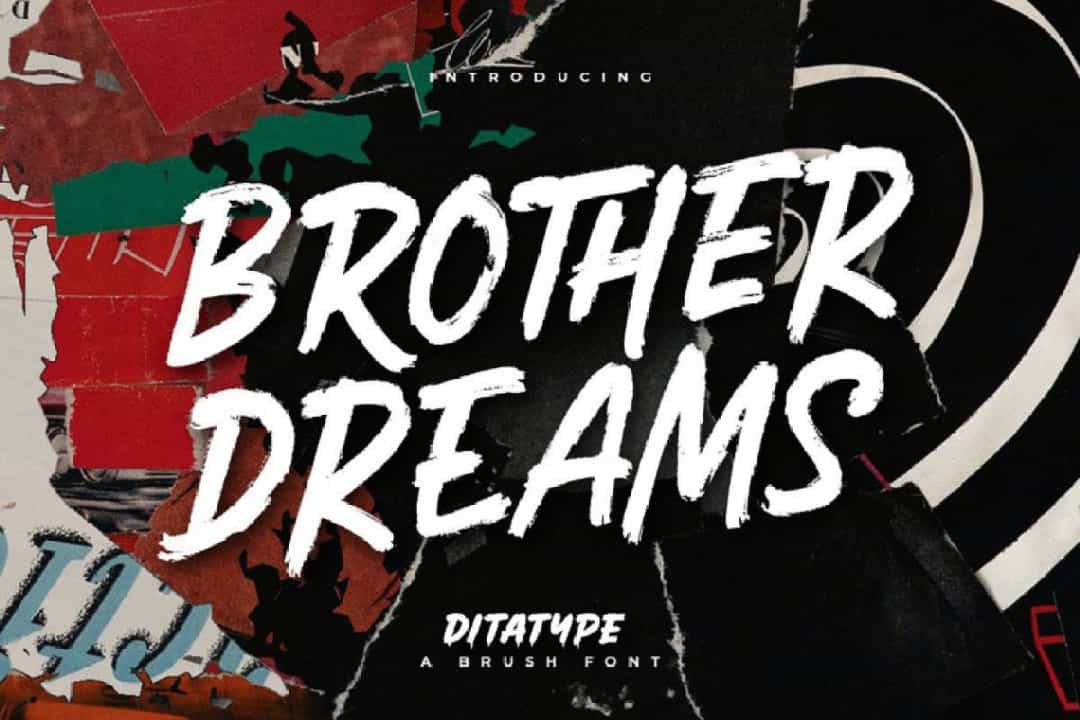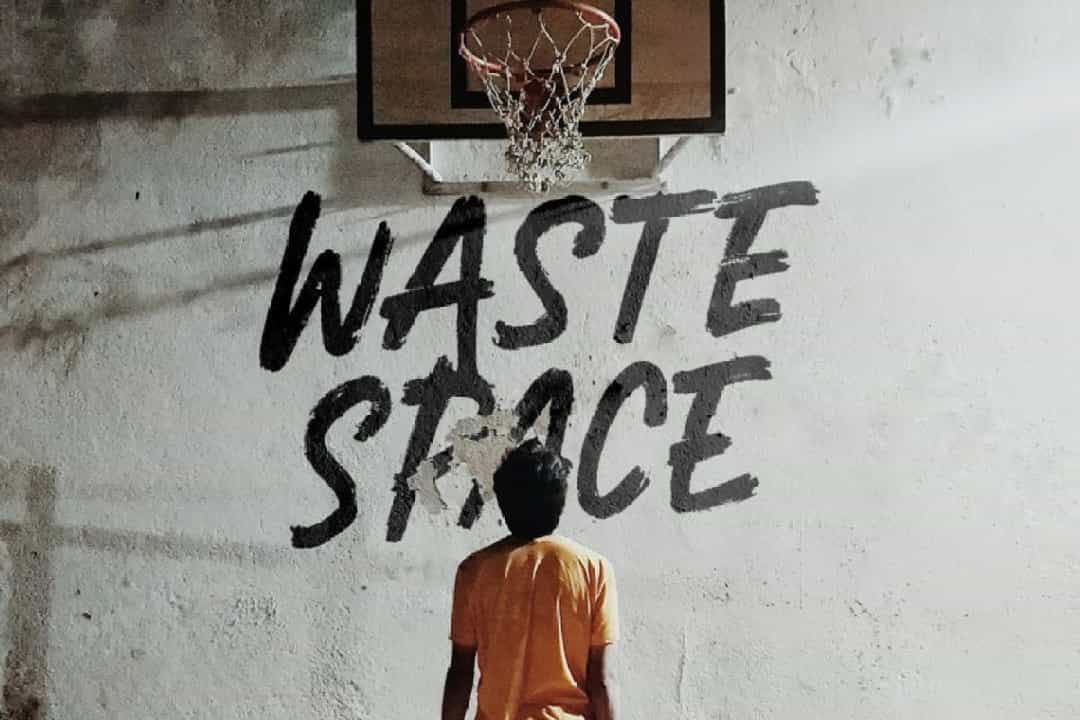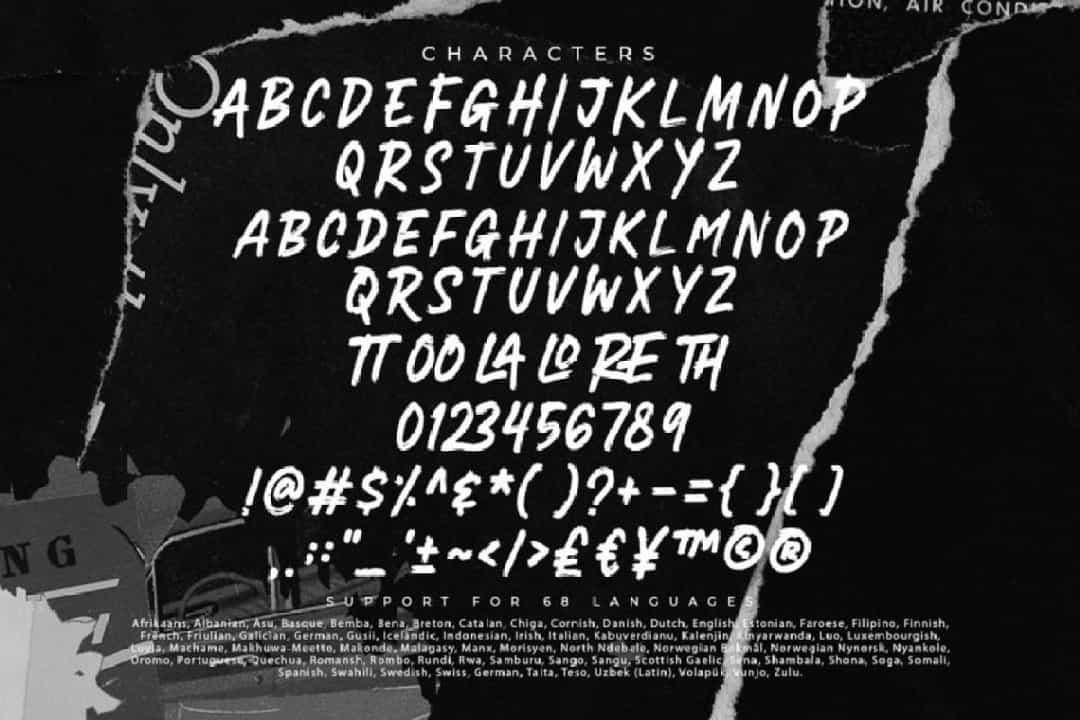
Brother Dreams is an impressive brush font with an artistic yet raw aesthetic. Boasting bold letterforms capitalised and rough edges, Brother Dreams makes an unpretentious and unique statement in your design. Brother Dreams’ distinguishing feature lies in its rough edges and ragged edges giving this font its handmade and slightly worn appearance; additionally its bold brush strokes capture all the beauty of calligraphy beautifully.